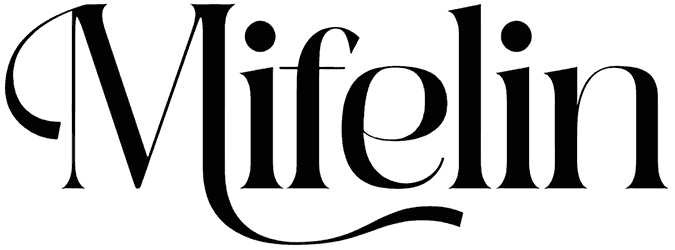
Mifelin Font
Ah, you’re here again! Our regular user for our awesome logo fonts! Then we’d better get down to the business right away because, as it happens, we’re about to add yet another one to our cool modern collection, and it goes by the name Mifelin.
Truly sorry, but numbers? That we can’t give you here. But prestige? Luckily, Mifelin has a lot of that to give to you and your art consultant business cards, chef classes for restaurants, and more.